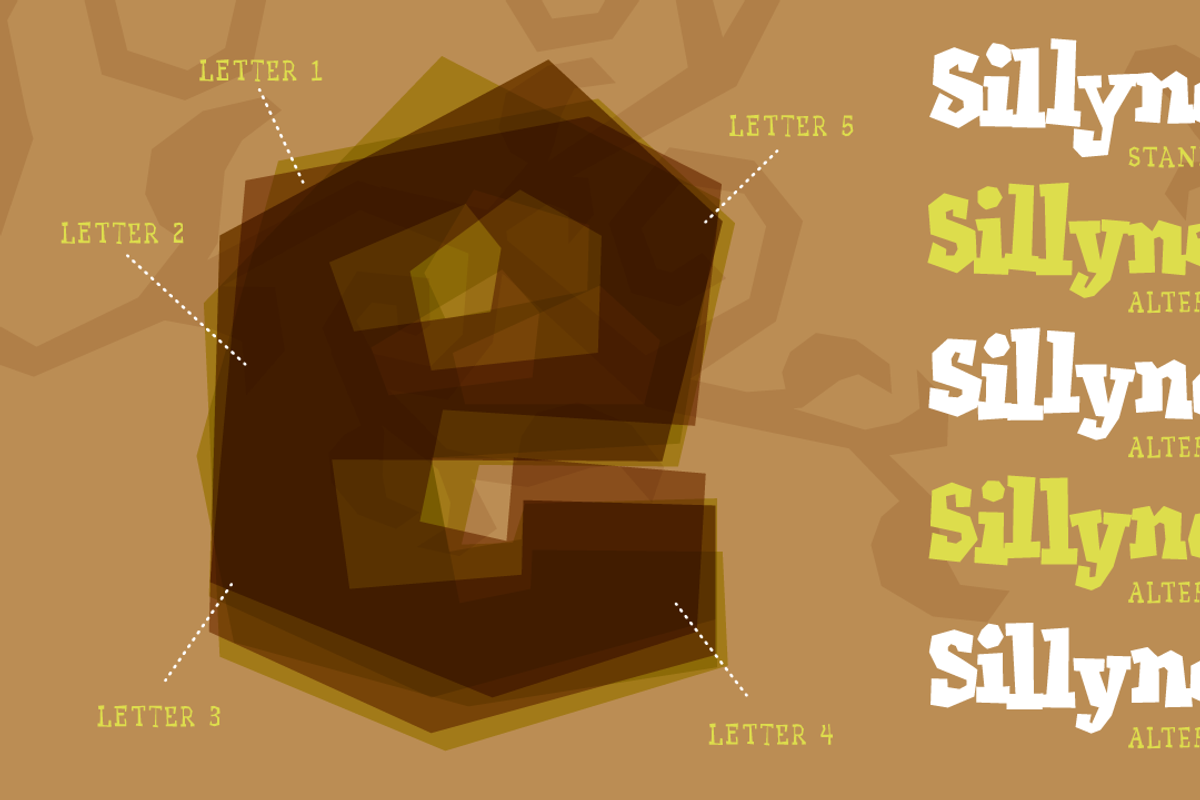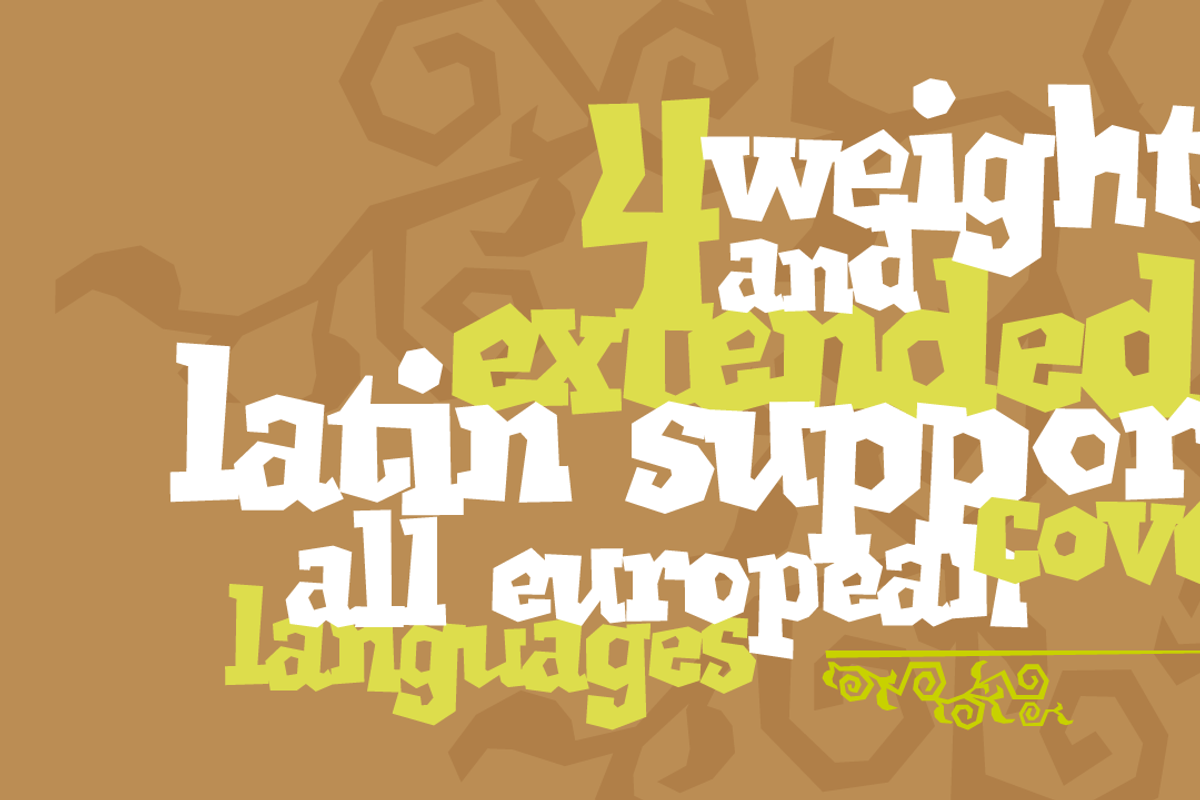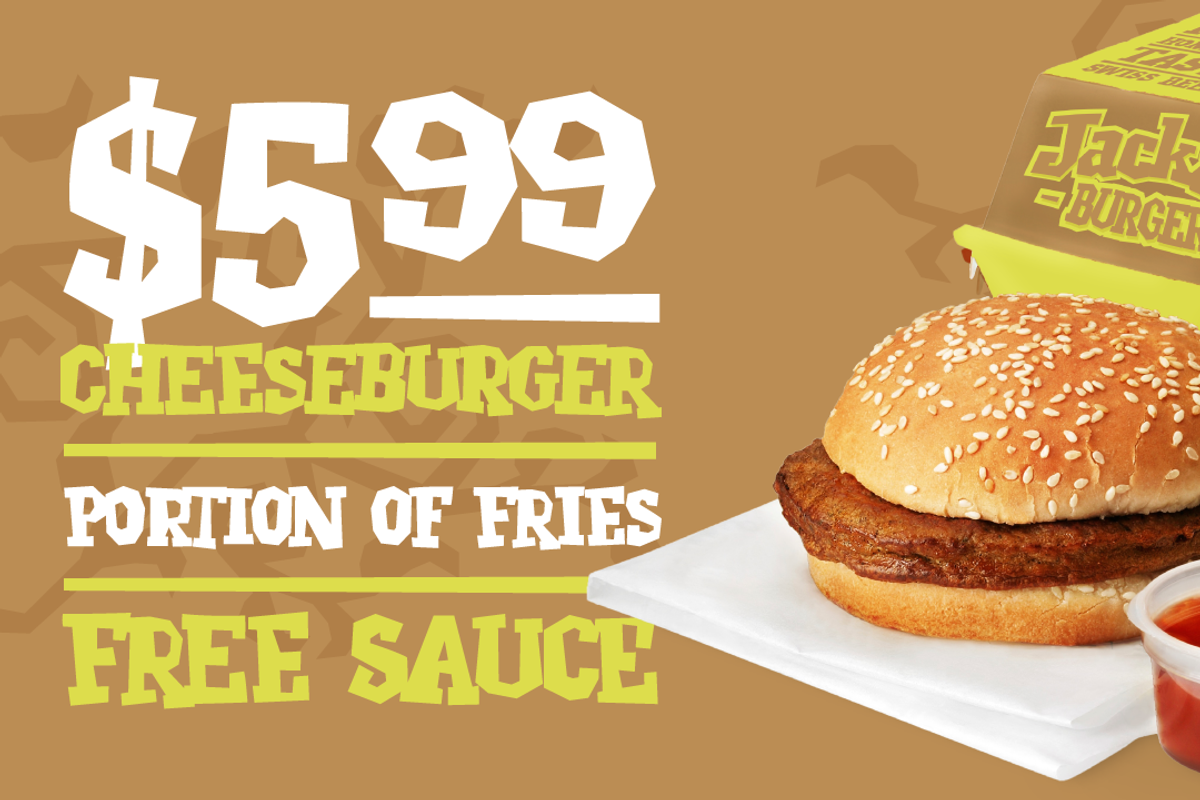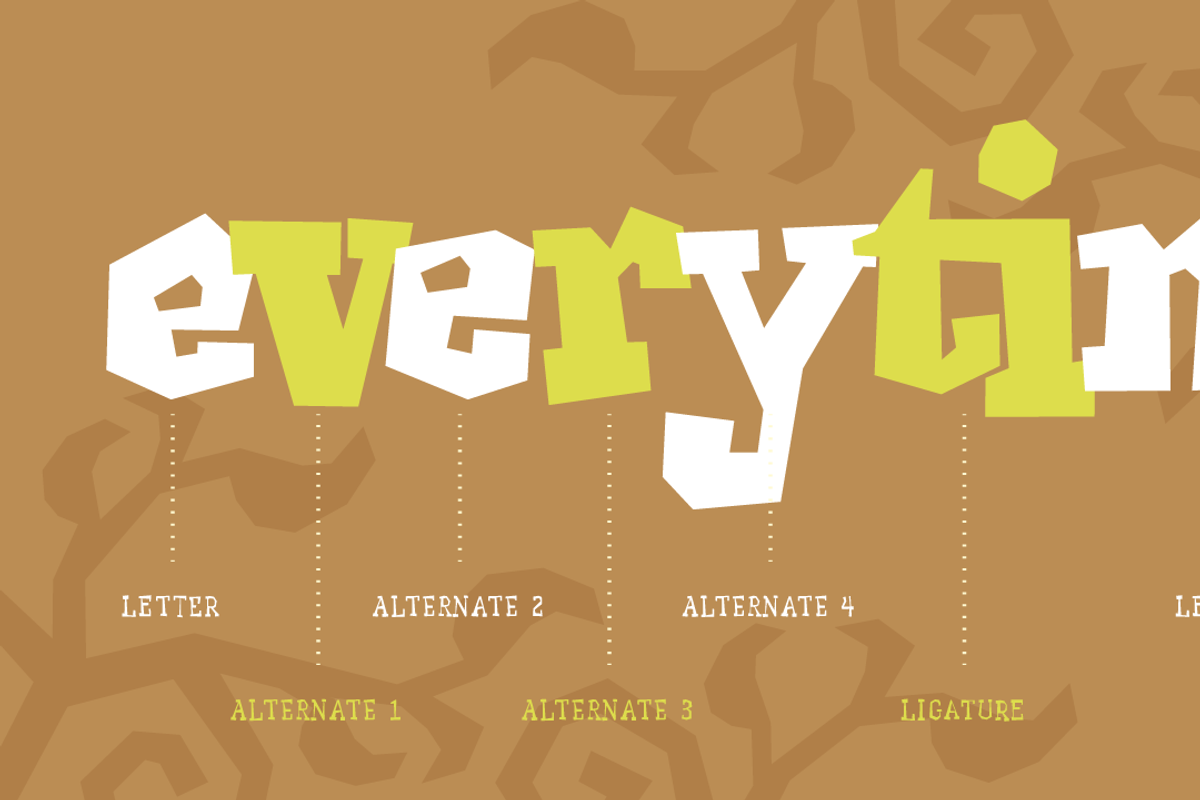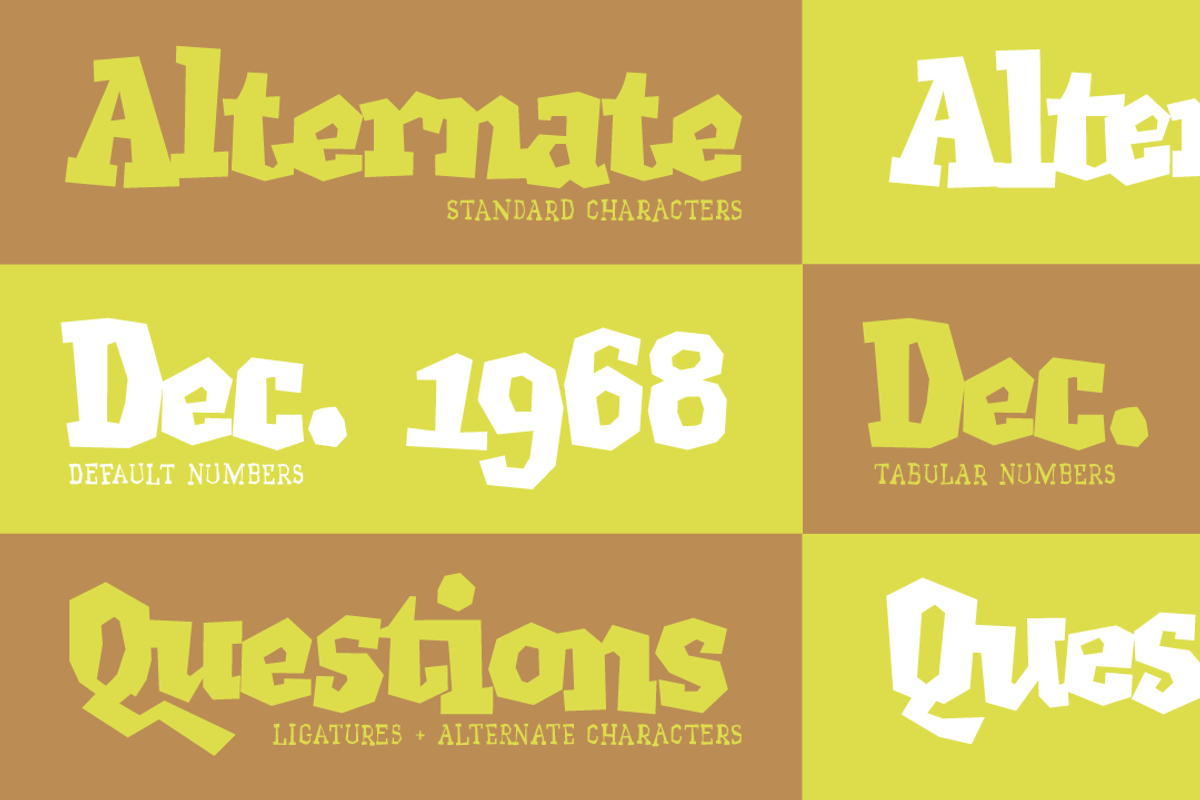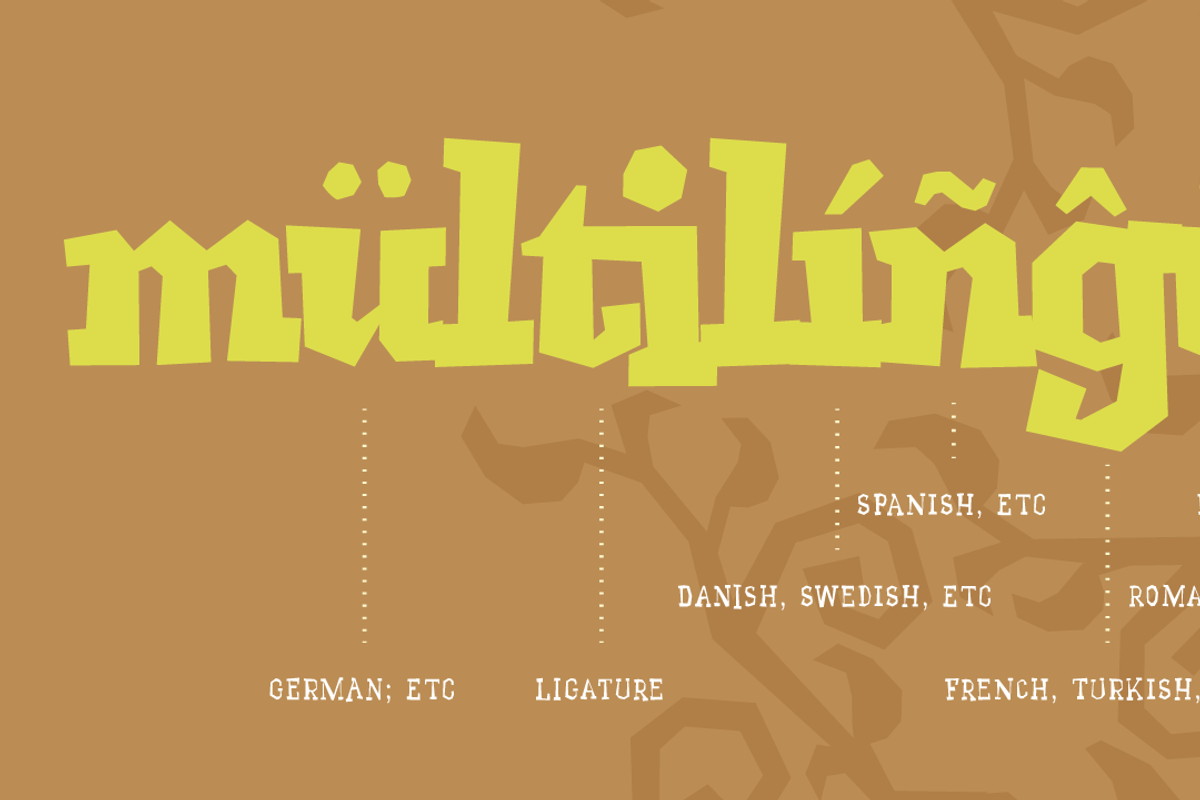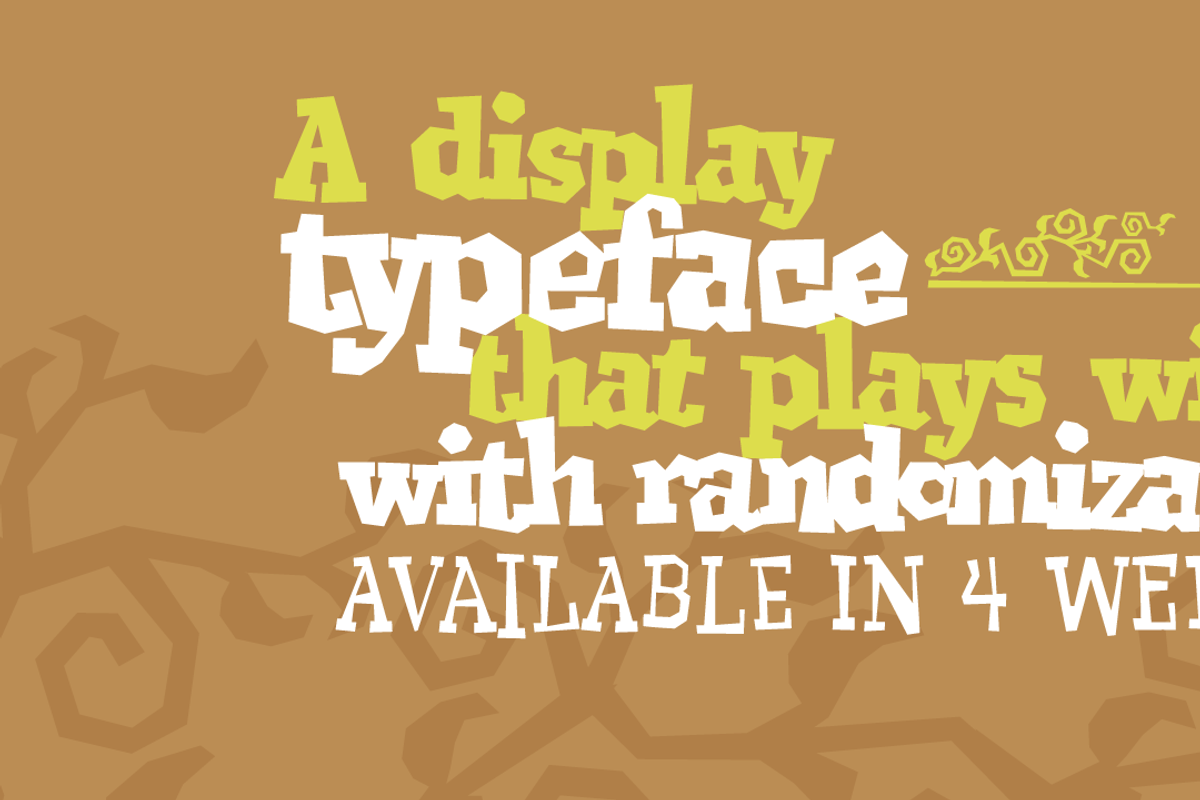
Jackazz typeface
Jackazz typeface by Typogama is a font selected for branding, posters, packaging, typography.
- Included in the family is two complimentary dingbat fonts, Chickenz and Framez.
- With added ligatures and a selection of number styles, this typeface is a funky solution that will constantly surprise!
Why Jackazz typeface is worth a look
Jackazz typeface by Typogama fits naturally into Branding, posters, packaging, typography.